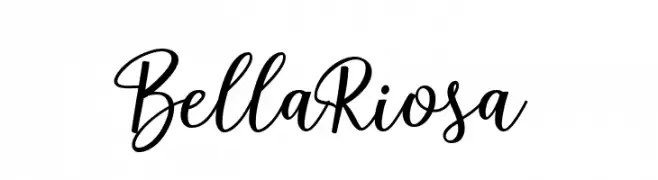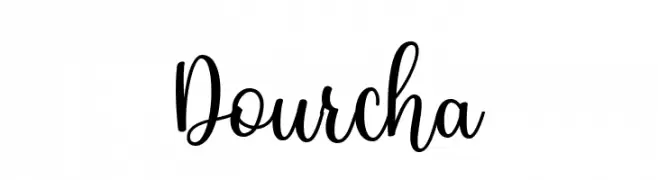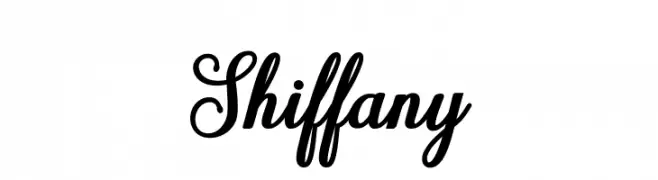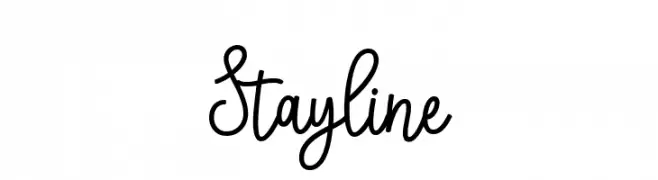
A flowing, cursive script with elegant loops and a modern touch.
An elegant, flowing script font with ornate uppercase and smooth lowercase letters.
A lively, flowing script font with elegant, cursive strokes.
A cursive, handwritten font with elegant, flowing characters.
A playful, handwritten script font with flowing, connected letters.
A graceful and elegant script font with flowing, cursive strokes.
A bold, expressive script font with flowing, cursive letterforms.